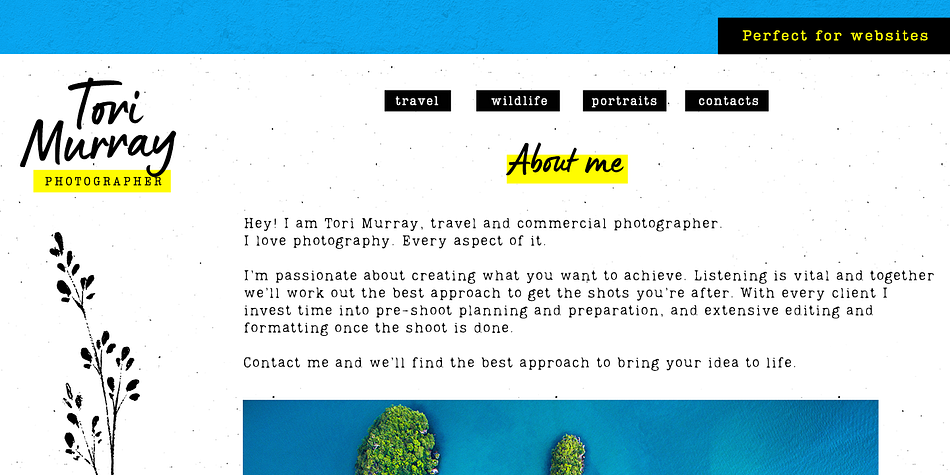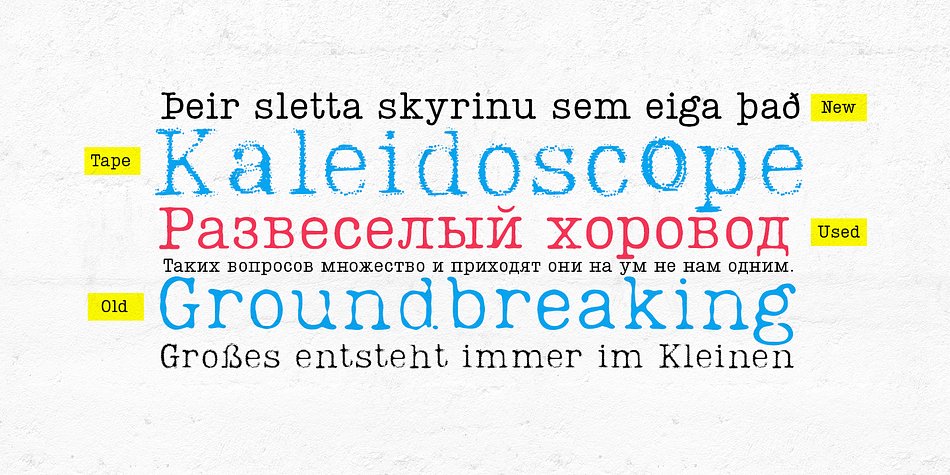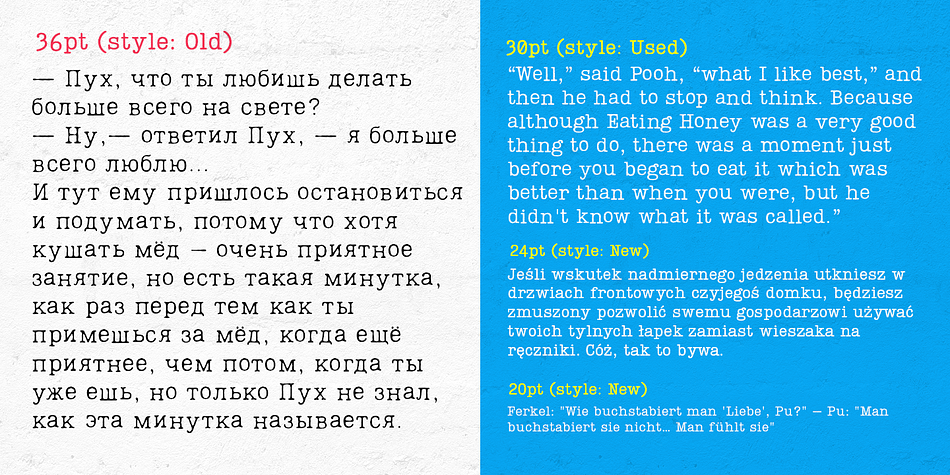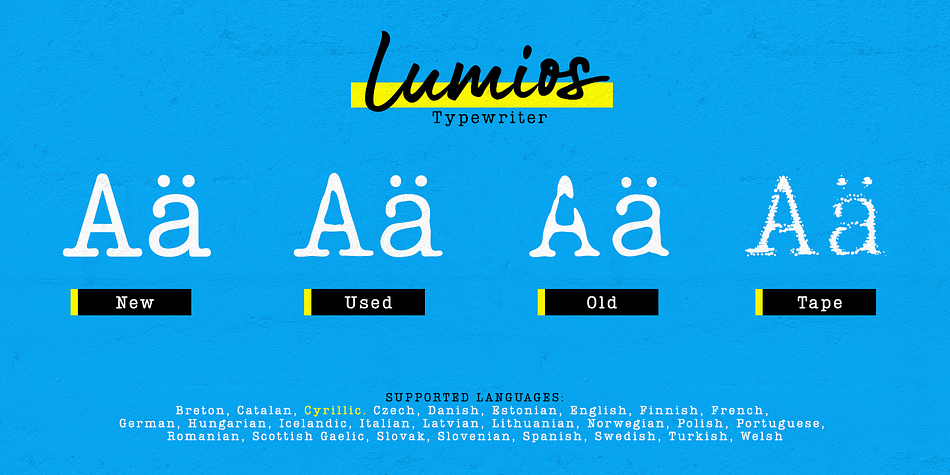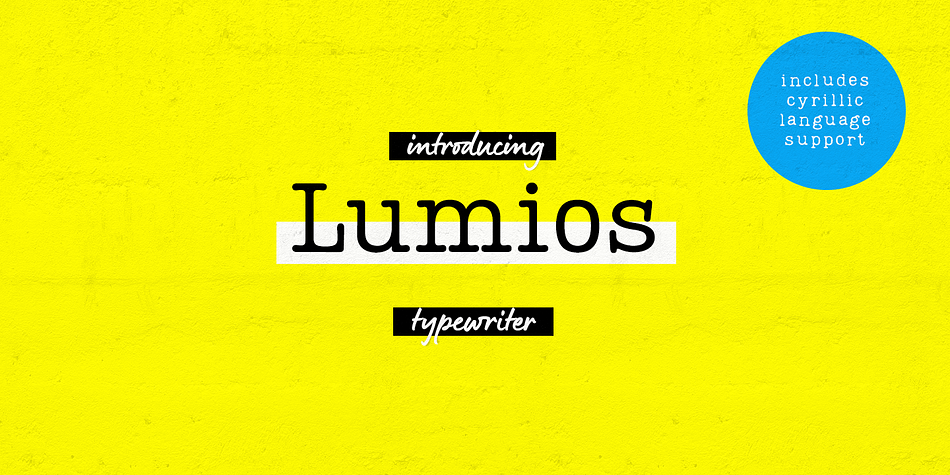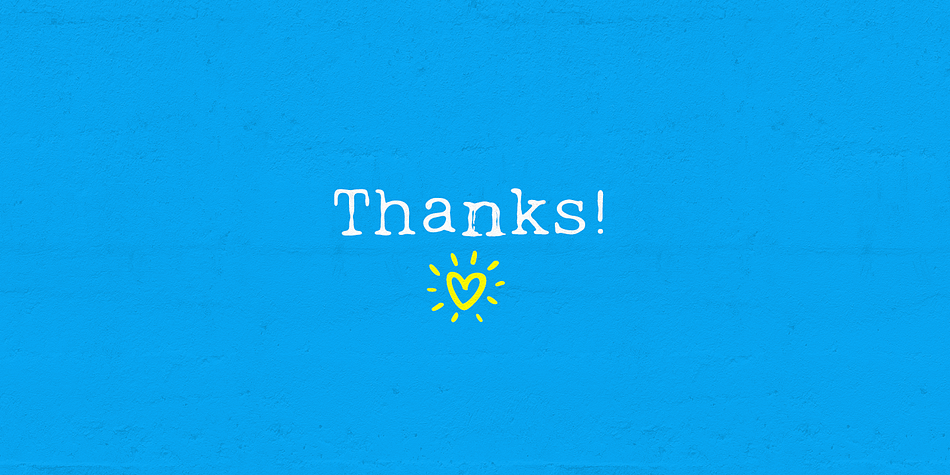
Designed by Elena Genova, Lumios Typewriter is a grunge and typewriter font family. This typeface has four styles and was published by My Creative Land.
Lumios Typewriter is a slab serif font that was inspired by, as you may guess, an old typewriter letters.
The family has 4 unique styles: New, Used, Old and texturized Tape. All fonts benefit from OpenType features such as stylistic alternates that enhance a natural look of this font family.
As well as Latin-based language support, it also offers a basic Cyrillic one.
It is ideally suited for websites, packaging, editorial and branding design needs as well as for posters, greeting cards, billboards etc.
Lumios Typewriter is a perfect companion to Lumios Marker, sharing the same soft curves and clean letter edges (excluding theTape style, of course).